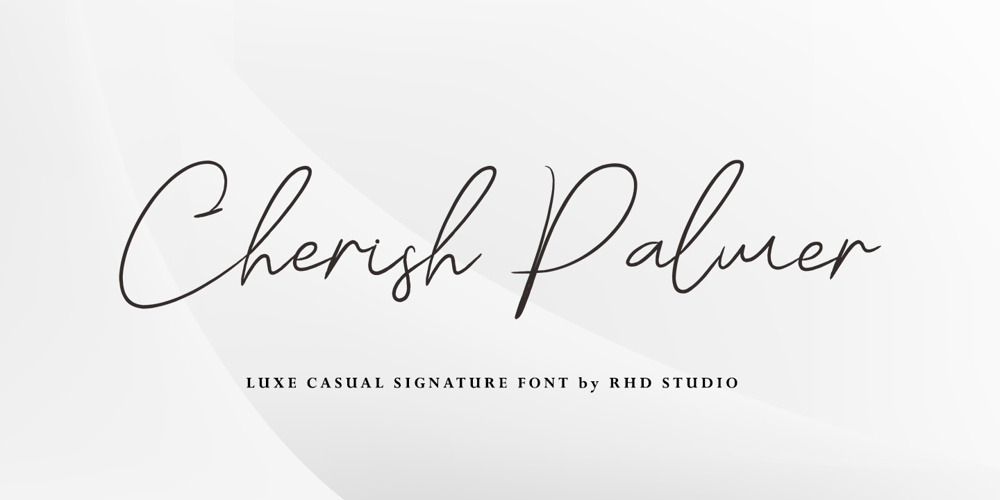
Cherish Palmer Font Family was designed by Rahmad Rizky and published by Rhd Studio. Cherish Palmer contains 1 styles and family package options. Introducing the art of luxuryCherish Palmer. This font tells a story of a glimpse, a touch of a moment. Some letters may be illegible, but their shapes evoke emotion. Sometimes in design, emotion is more important. Our brains can decipher the shape of letters.What did you get, honey?Thank you and have a nice day